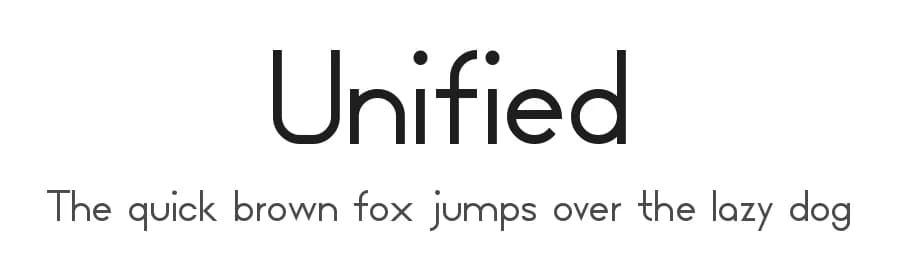
About Unified Font
Unified is a sans-serif font designed by Nils Kähler. It includes 108 glyphs, a regular weight, TTF (TrueType) format, and 117 languages. Unified is free to download; check the license details on this page before commercial use. Sans-serif fonts like Unified work best for clean body text, user interfaces, branding, and modern layouts.
Unified Font is a versatile sans-serif font that works for both headings and body text. Pair it with a contrasting serif or slab serif font to add visual interest and a clear distinction between titles and body copy.
Unified Font